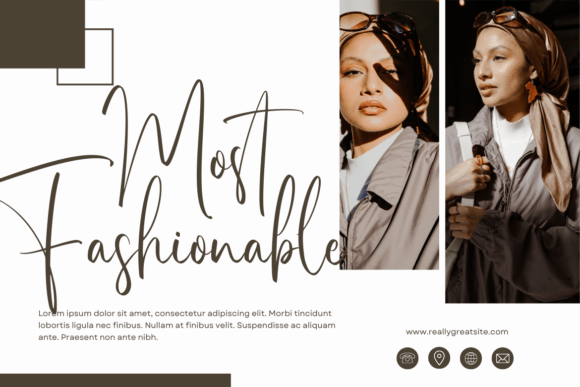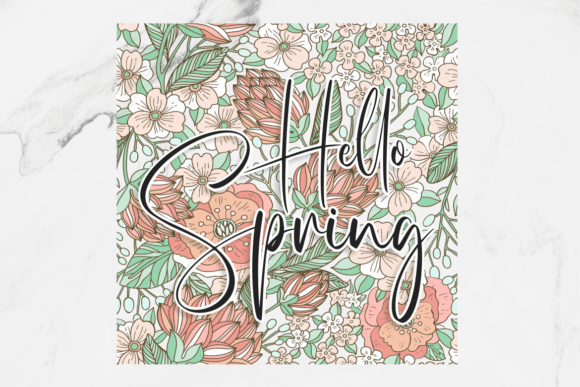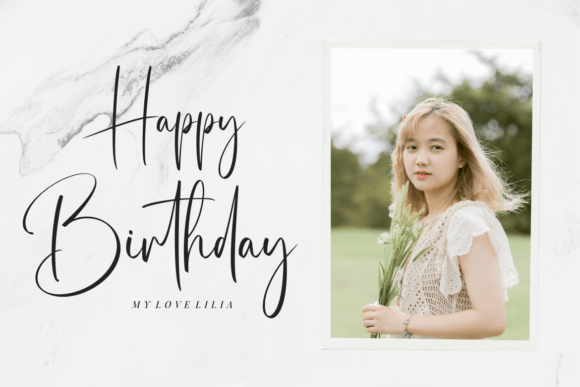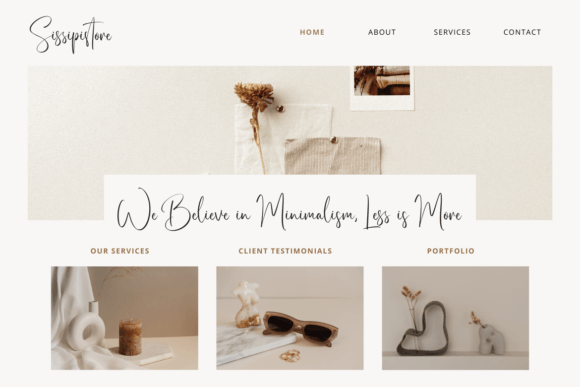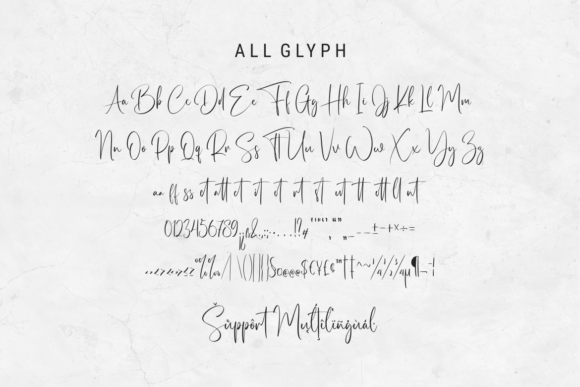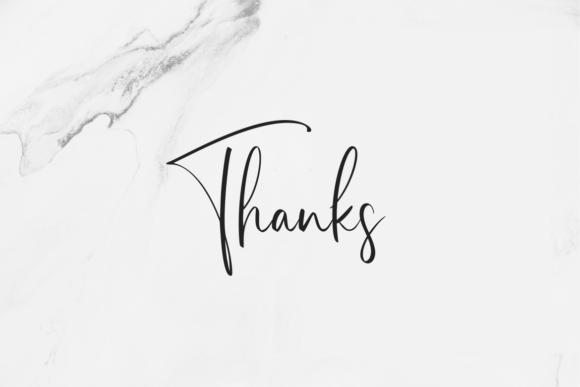
Introduction to Rossalista Font
As a designer, have you ever found yourself pouring over font options, searching for that perfect script to elevate your creative project? I recall a recent design challenge where I needed a font that exuded elegance and sophistication, and that’s when I stumbled upon the stunning Rossalista Font.
With its delicate flourishes and sweeping curves, Rossalista Font is a game-changer for designers looking to add a touch of luxury to their branding materials, wedding invitations, or any other project that requires a high-quality design resource. What’s more, this beautiful font is PUA encoded, making it effortless to access all its delightful glyphs and swashes, allowing you to customize your design with precision.
Whether you’re working on a free download or a paid design project, Rossalista Font is a valuable asset that will take your designs to the next level. Its transparent background and high-quality design make it an excellent choice for designers seeking to create truly unique and captivating visuals.
Key Features of Rossalista Font
- Unique, hand-drawn style with a transparent background for flexibility
- Perfect for use in logos, branding, and other design elements
- Supports multiple languages and characters for global use
Honest Review: Rossalista Font
I recently came across the Rossalista Font while searching for a unique design resource for a creative project. I was excited to give it a try and see if it would meet my expectations.
Here are some of the things that I think work well about the Rossalista Font: ✨
- Offers a transparent background option, which is perfect for designers who need a clean and simple look
However, I did encounter a few limitations while using the Rossalista Font: ⚠️
- Some of the font styles may not be compatible with certain software or platforms
- The font may not be as versatile as some other design resources, which could limit its use in certain creative projects
Overall, I think the Rossalista Font is a solid design resource that’s worth considering for your next creative project. While it may have some limitations, its high-quality design and free download option make it a great value for designers.
Tips for Getting the Most Out of Rossalista Font
To get the most out of the Rossalista Font, experiment with different font sizes and styles to create visually appealing designs. You can also use the font in combination with other design elements to create a unique and creative project.
The Rossalista Font is perfect for designers, artists, and creatives who want to add a touch of elegance and sophistication to their projects. It’s ideal for use in logos, branding, and marketing materials, as well as in digital graphics and illustrations.